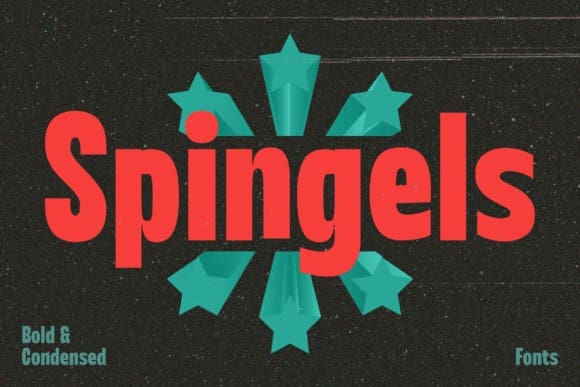
Spingels Font
Spingels Font – the perfect combination of bold style and casual feel. Designed with delicate ink strokes for a modern touch, Spingels strikes the perfect balance between playfulness and professionalism. Whether you’re creating a striking logo, eye-catching poster or memorable branding, Spingels offers versatility and impact. Its bold yet approachable design makes it perfect.